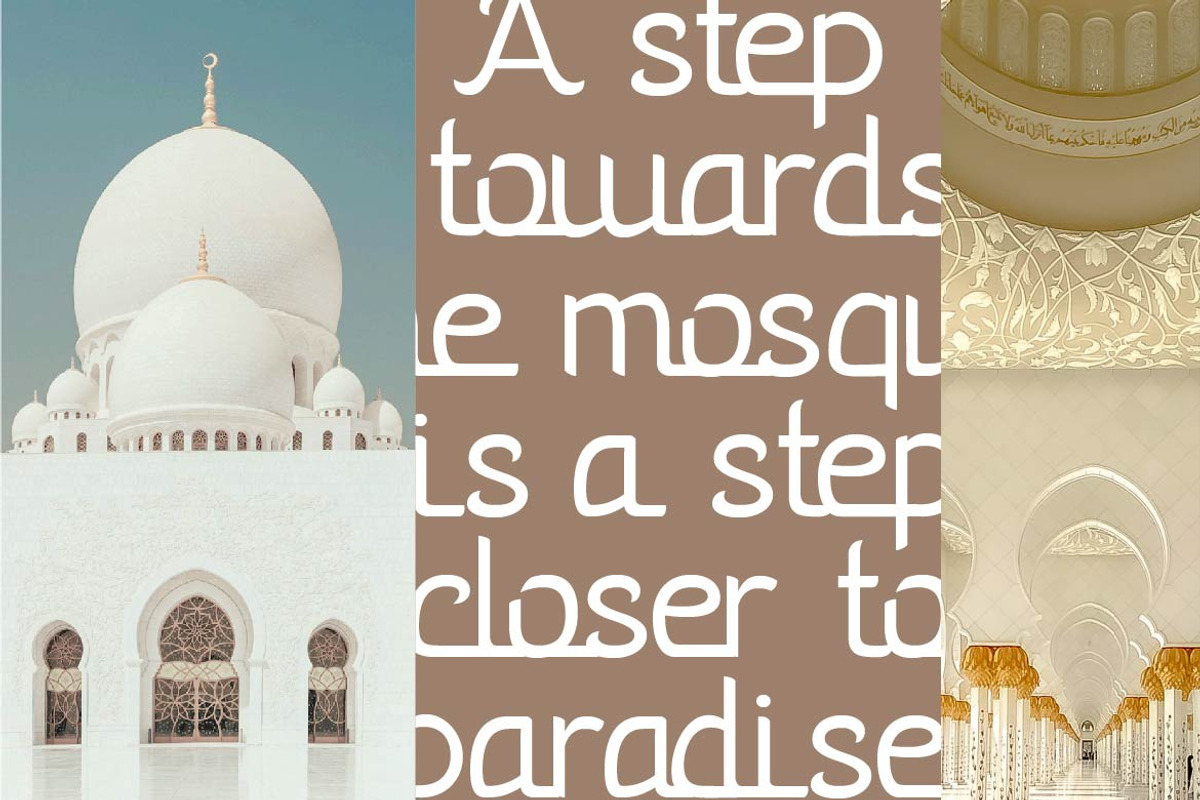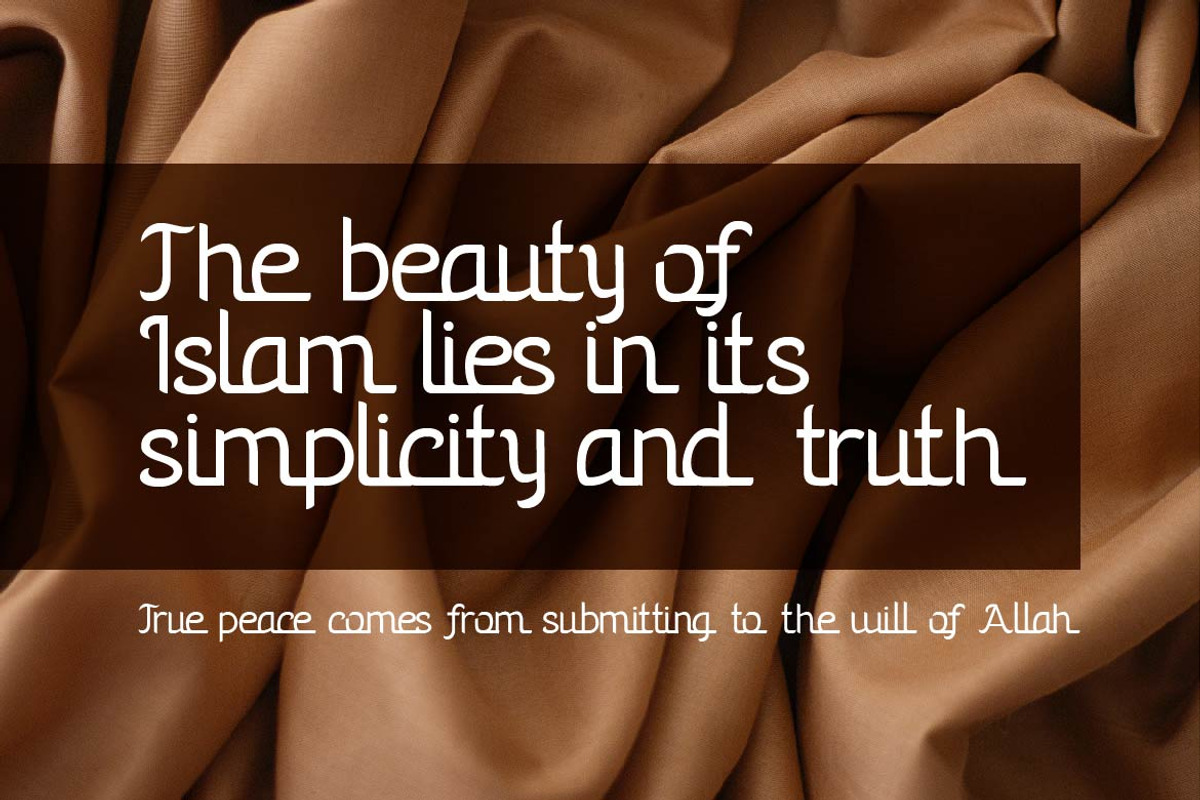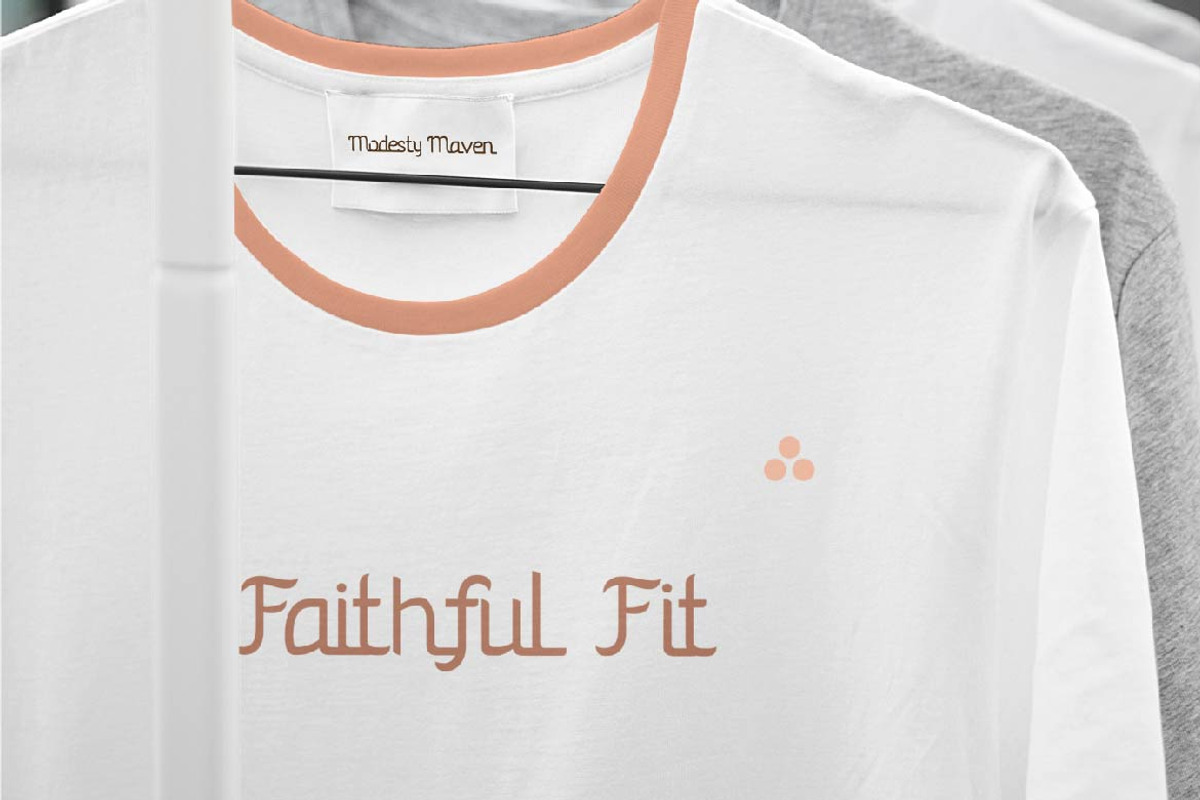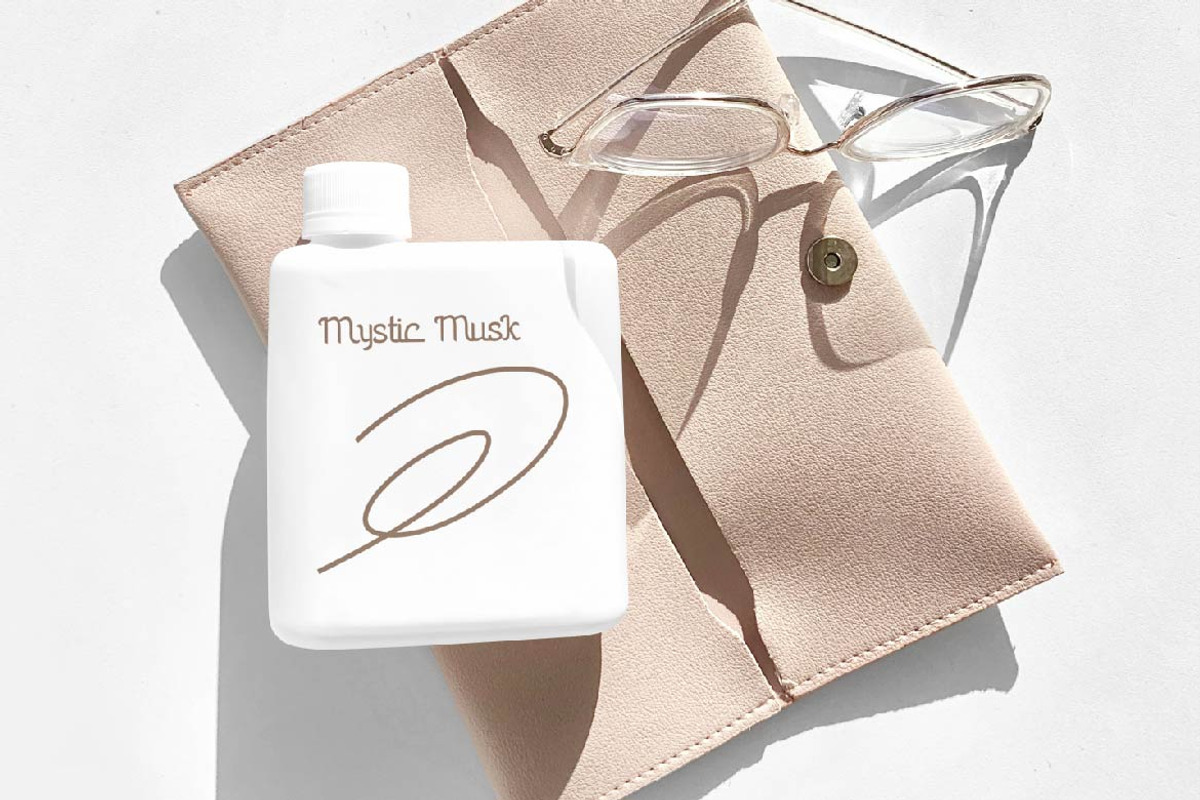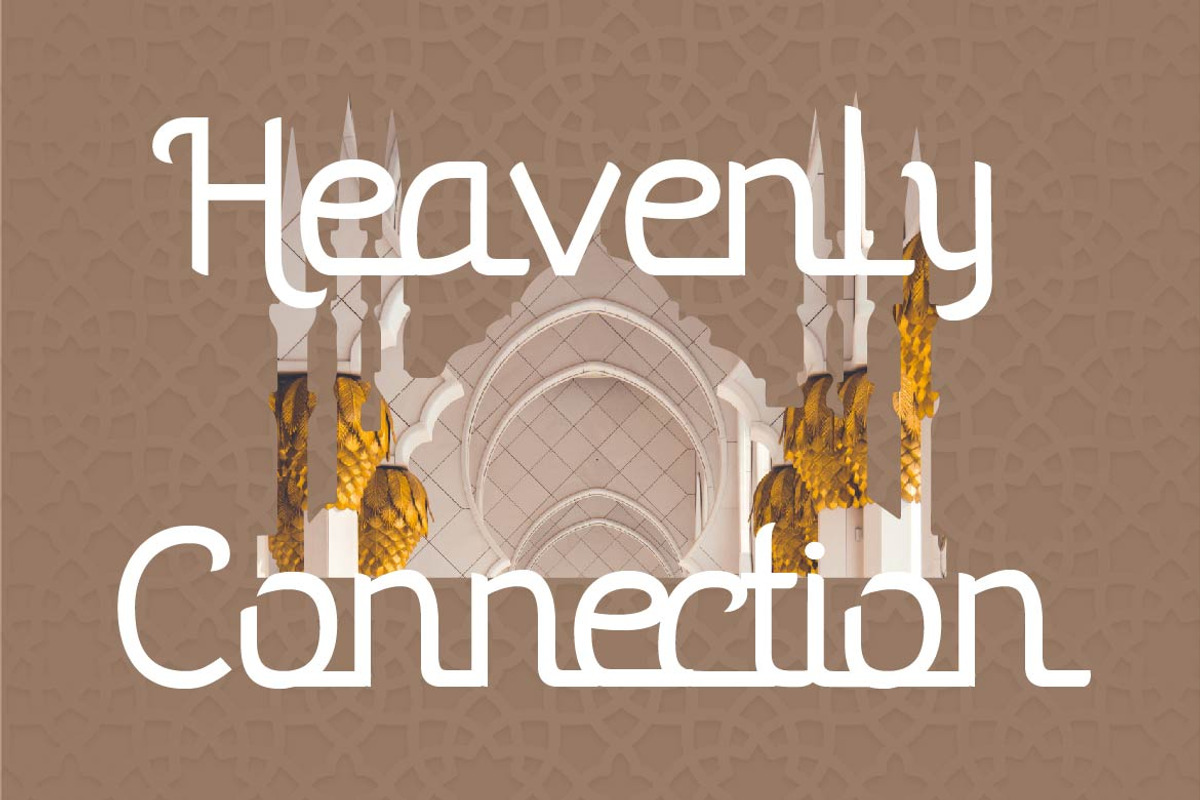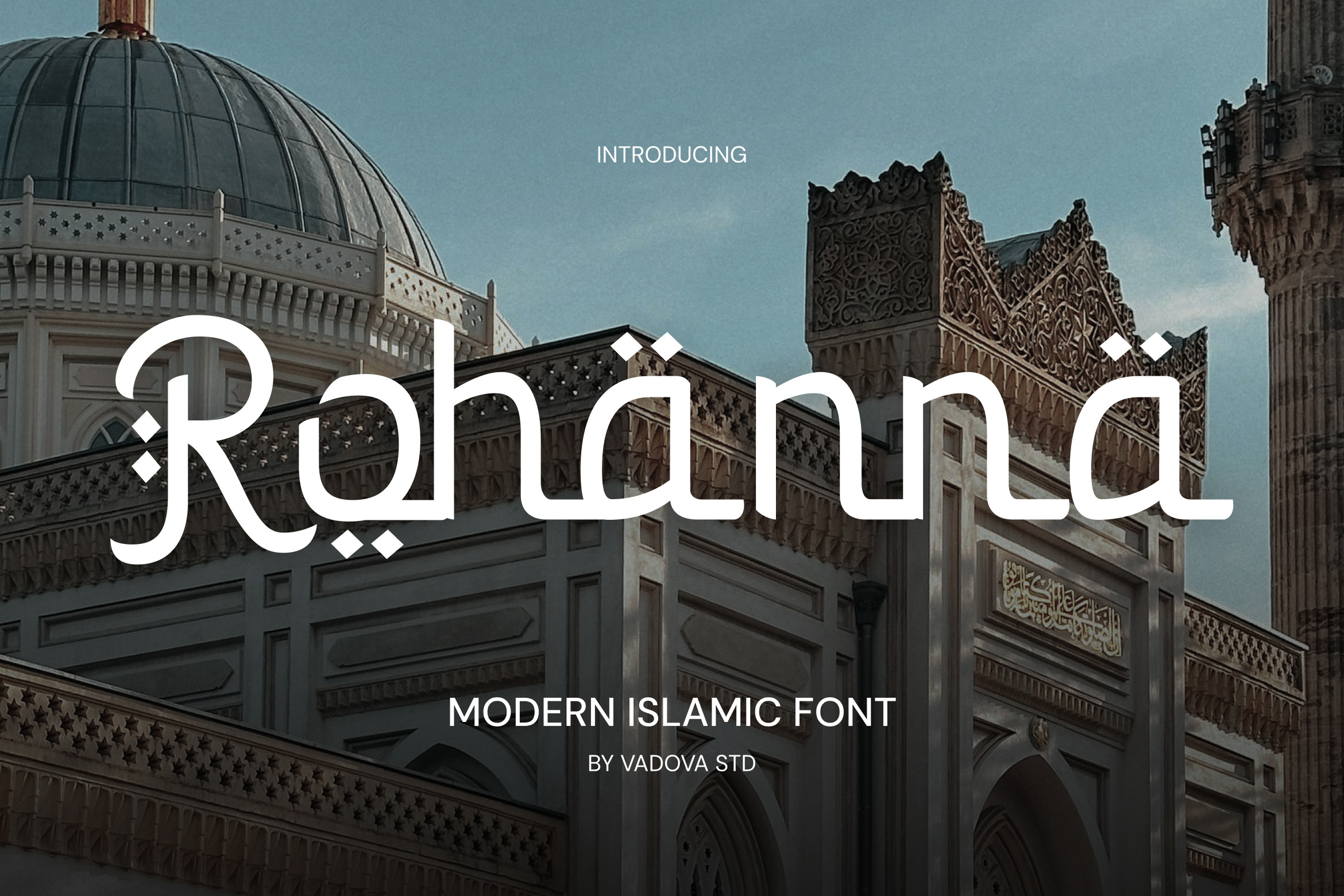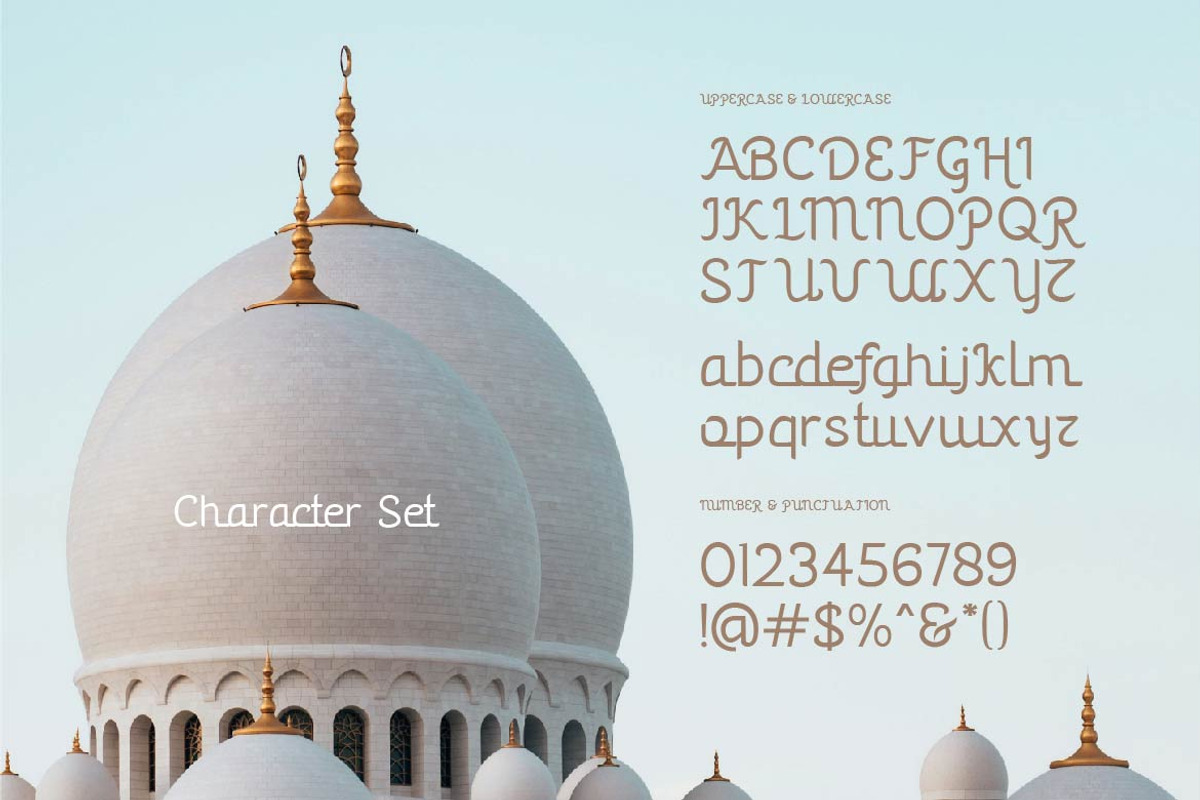
Rohanna – Modern Islamic Font
Rohanna is a modern Islamic display font that combines clean geometric structure with cultural artistry. Inspired by traditional Arabic aesthetics, its unique letterforms integrate smooth curves and refined lines, giving it a fresh, elegant personality. Perfect for projects that seek to blend modern sophistication with Islamic identity, Rohanna stands out as a versatile and impactful typeface.
With its well-balanced proportions and distinctive character, Rohanna is ideal for branding, editorial layouts, religious events, and digital designs that need a strong cultural presence presented in a modern way.
Font Highlights
Uppercase & lowercase characters
Numerals and punctuation
Modern geometric letterforms with Islamic influences
Why Designers Love Rohanna
Cultural Elegance – Blends Islamic motifs with a clean, modern typographic style.
Distinctive Display – Creates a strong visual identity for both traditional and contemporary projects.
Versatile Applications – Perfect for branding, editorial work, events, and cultural campaigns.
Modern Appeal – Balances heritage with minimalism, suitable for digital and print use.
Best Applications
Islamic branding and event identities
Editorial titles and magazine layouts
Product packaging with cultural themes
Posters, flyers, and advertising campaigns
Logo design and brand marks
Decorative signage and architectural graphics
Elevate your cultural designs with a modern edge — choose Rohannä to create meaningful, elegant, and impactful typography.